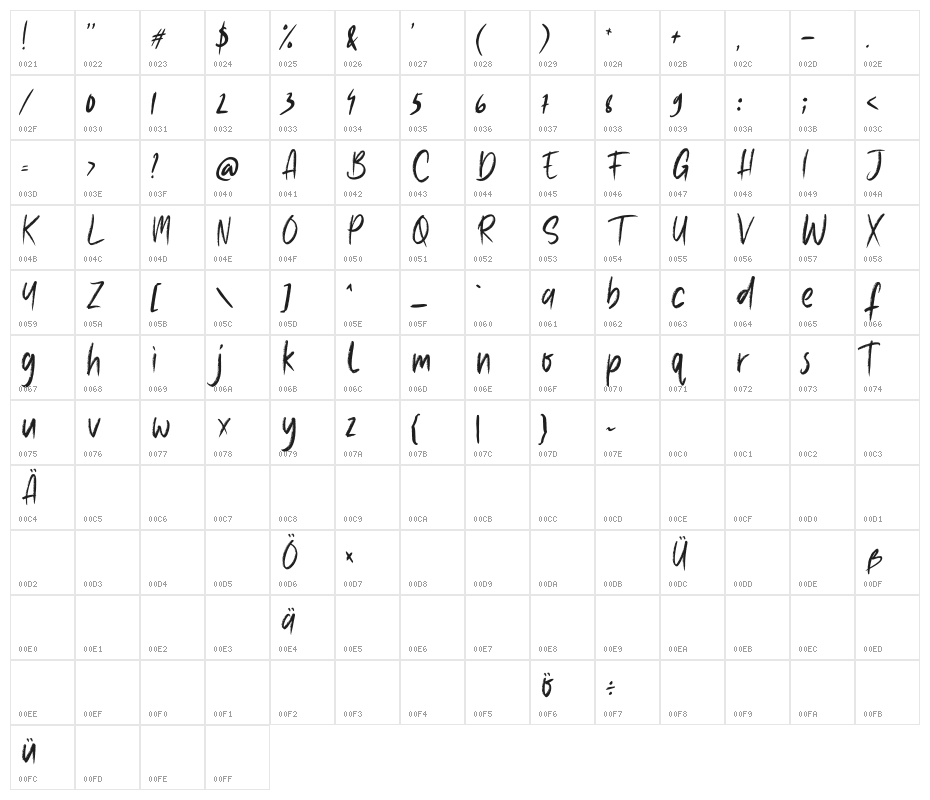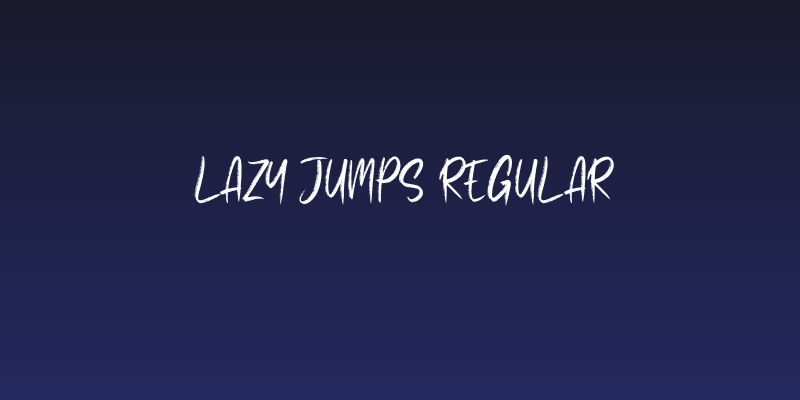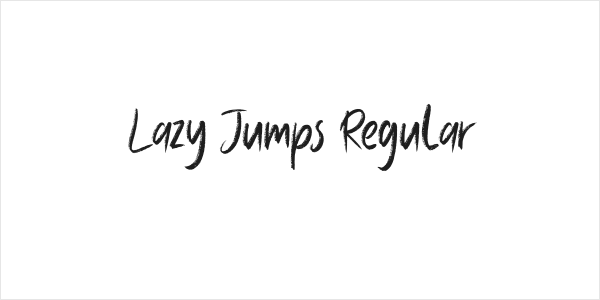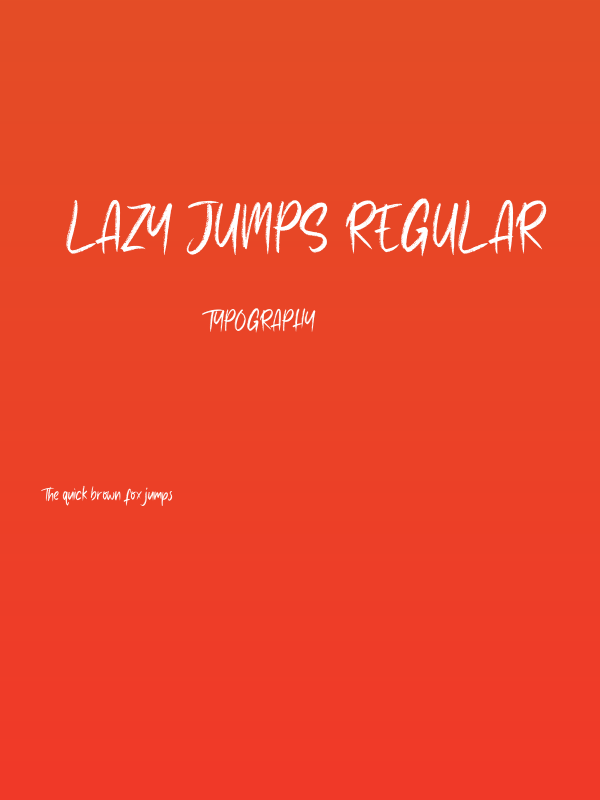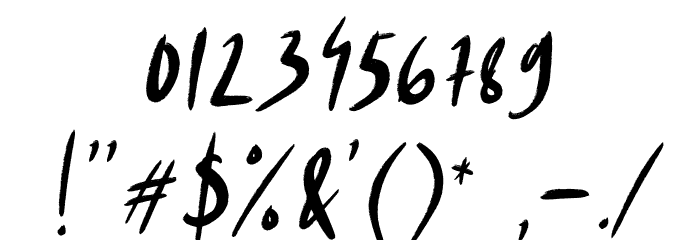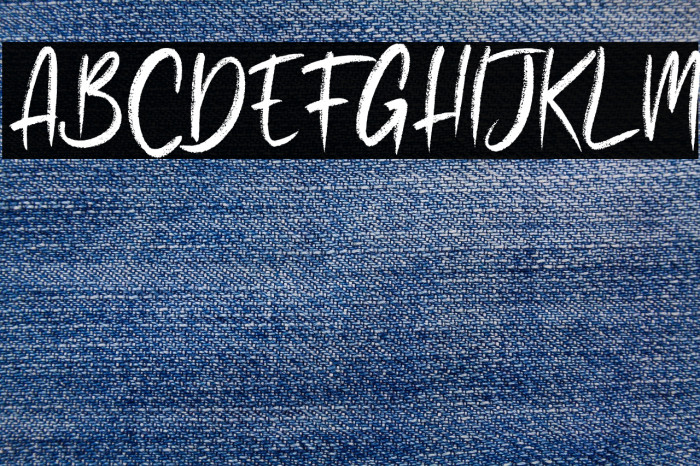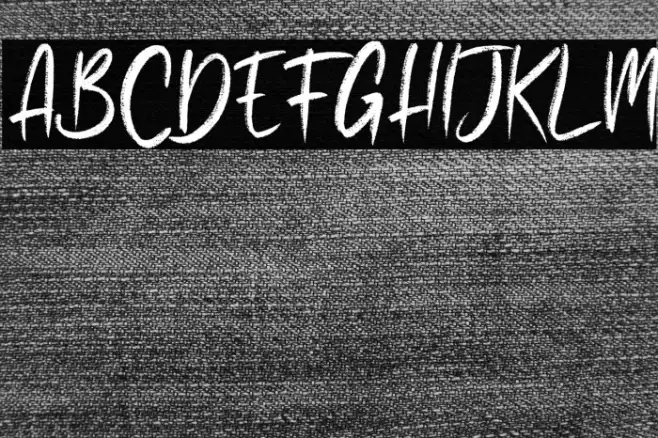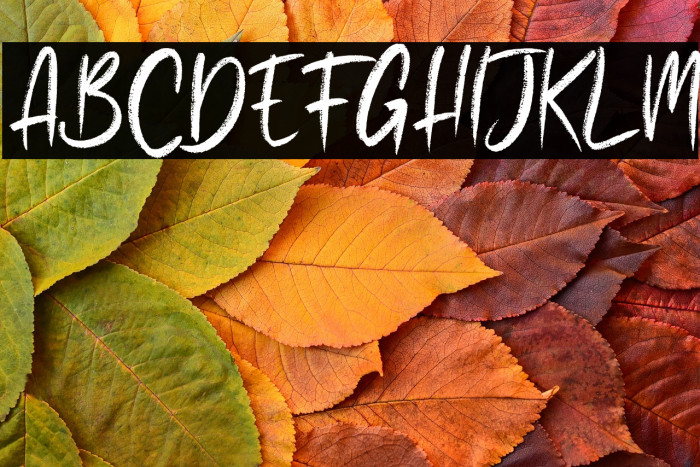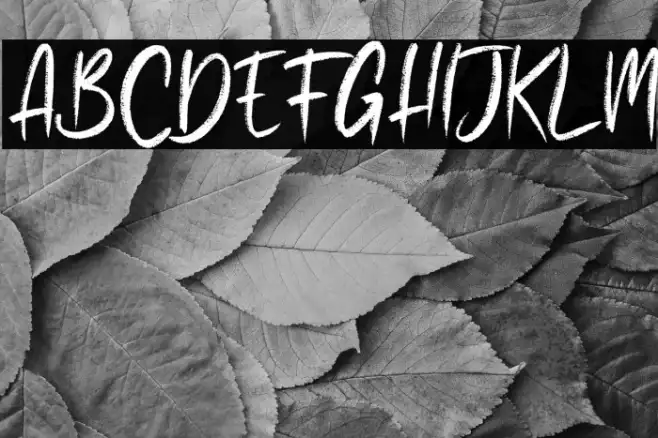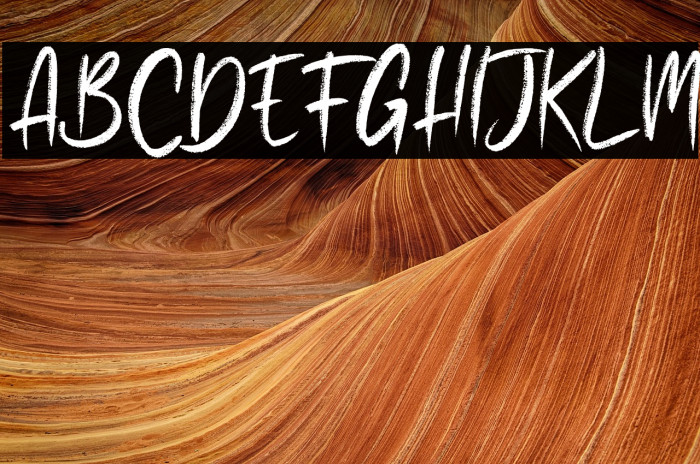
Lazy Jumps Regular Font
Lazy Jumps Regular Description
This font exudes a dynamic and energetic feel with its brush-like strokes and irregular edges, capturing a sense of movement and spontaneity. The uppercase and lowercase letters are crafted with a casual flair, giving the impression of handwritten text. The numbers and special characters maintain this lively style, ensuring consistency across all elements. Its bold and expressive nature makes it ideal for projects that require a personal touch or artistic vibe.
| Proposed Projects | Perfect for creative projects such as posters, invitations, branding, and social media graphics where a personal and artistic touch is desired. |